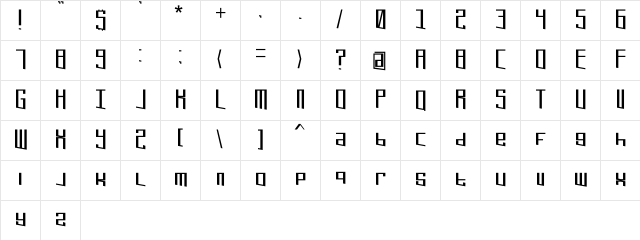
Extreme Refresh Original
| Foundry | Typoware |
| Designer | Jordie van Rijn |
Design Context for Extreme Refresh Typeface
Extreme Refresh offers clean, dependable letterforms without strong stylistic allegiance, making it a practical choice for designers who need flexibility.
Pro Tip: Use Extreme Refresh in both headline and body roles to test its range before committing to a single application.